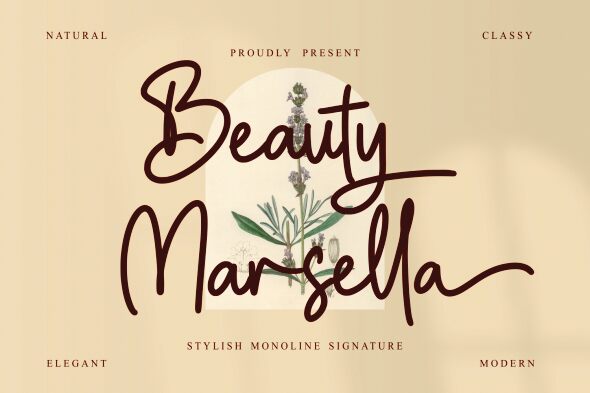
Beauty Marsella
Beauty Marsella is a stylish monoline signature font designed by Mozatype.std. With its light weight and graceful curves, Beauty Marsella is perfect for creating captivating logos, eye-catching invitations and stunning website designs.